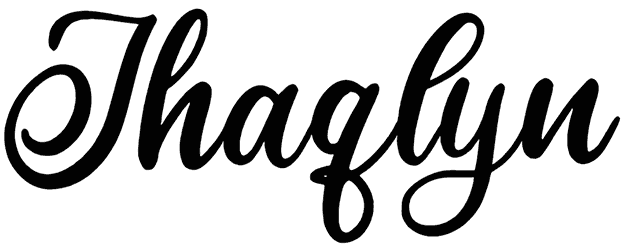
Camila Font
Camila is an adorable brush font with a crooked design that would be amazingly fit for fancy greeting cards, invitations, gift cards, and cosmetic packaging, You can also try it on T-shirts. This brush typeface has a feminine touch, thus you can share a sense of softness, kindness, beauty, and precision with your audience.
Font By Creative Zone